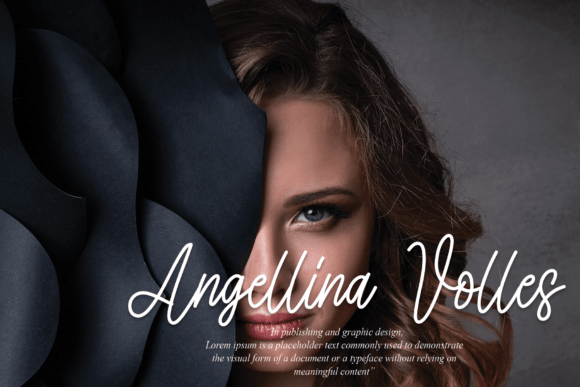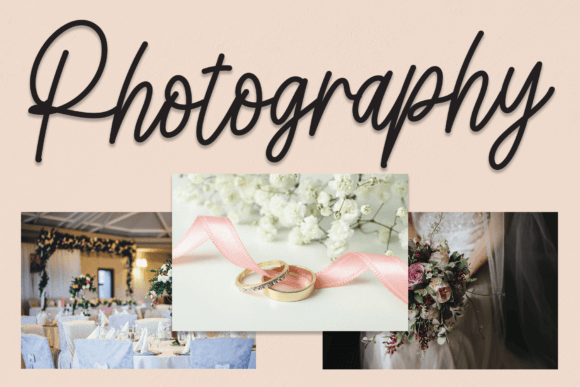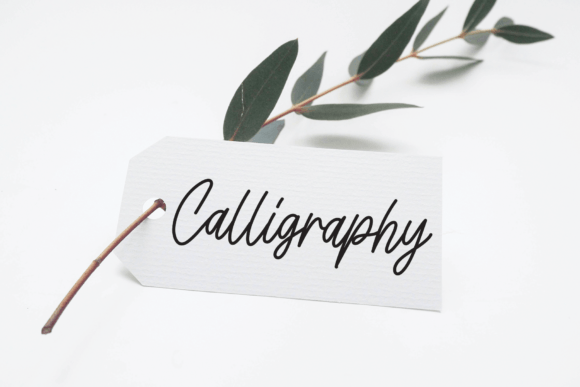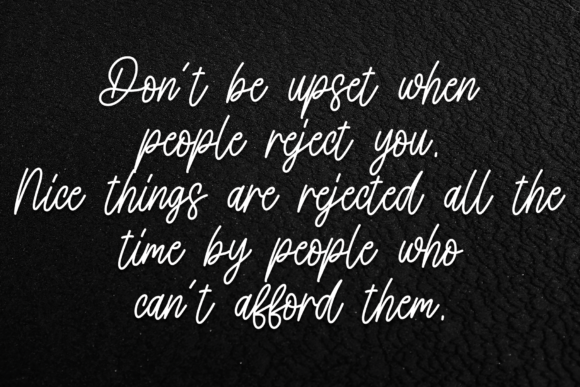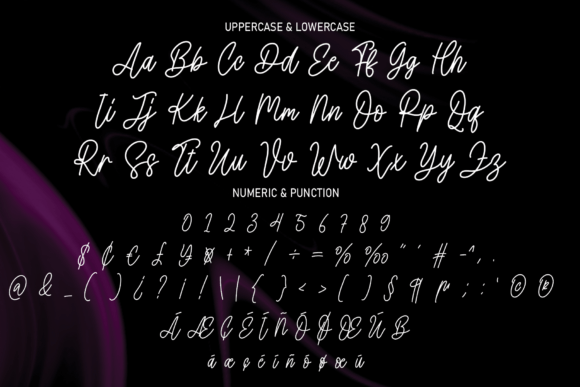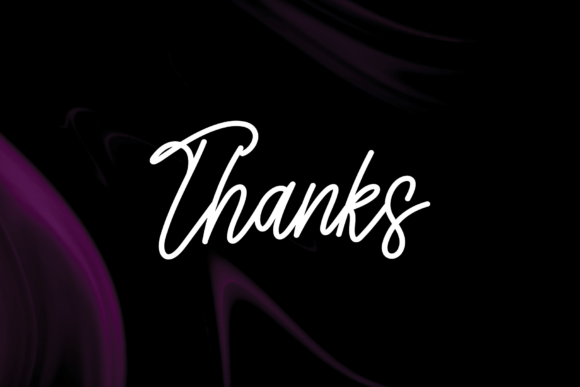
Discover the Elegance of Alone Font: Elevate Your Designs with Precision and Style
In the vast universe of typography, where fonts are the silent ambassadors of brand identity and creative expression, Alone Font emerges as a beacon of sophistication and elegance. This dazzling script font is meticulously crafted with a keen eye for detail, making it a versatile and valuable addition to any designer’s or crafter’s font library. Whether you’re working on a branding project, crafting a heartfelt invitation, or bringing a story to life through digital media, Alone Font promises to enhance your creations with its unique charm and precision.
The Artistry of Alone Font
Alone Font is not just any script font; it’s a masterpiece that blends traditional calligraphy techniques with modern design sensibilities. Its neat and highly detailed structure lends a touch of luxury and professionalism to any project. The font’s design ensures that it remains legible and impactful across various applications, from elegant stationery and corporate branding to captivating digital content and advertising.
One of the standout features of Alone Font is its incredible versatility. Its elegant strokes and balanced letterforms make it suitable for a wide range of topics and themes. Whether you’re aiming to evoke a sense of nostalgia, convey sophistication, or simply add a personal touch to your work, Alone Font adapts seamlessly to your creative vision. This adaptability makes it an invaluable resource for designers and crafters who work on diverse projects or wish to explore different creative avenues.
Why Choose Alone Font?
There are several reasons why Alone Font should find a place in your font collection:
- Enhanced Readability: Despite its decorative nature, Alone Font boasts excellent readability, ensuring that your message is conveyed clearly and effectively.
- Unique Aesthetic: Its distinctive style sets it apart from more common fonts, allowing your designs to stand out in a crowded digital landscape.
- Professionalism: The font’s polished and refined appearance lends a professional edge to your work, making it ideal for high-end projects or corporate branding.
- Emotional Connection: Script fonts like Alone Font have the power to evoke emotions and create a personal connection with the audience, adding depth to your designs.
Using Alone Font in Your Projects
Alone Font is more than just a script font; it’s a tool that can elevate your designs, convey your message with elegance, and leave a lasting impression on your audience. Its blend of traditional charm and modern appeal makes it a valuable asset for designers and crafters looking to add a touch of sophistication to their work. By incorporating Alone Font into your creative arsenal, you’re not just choosing a font; you’re embracing a design philosophy that values precision, style, and emotional connection.